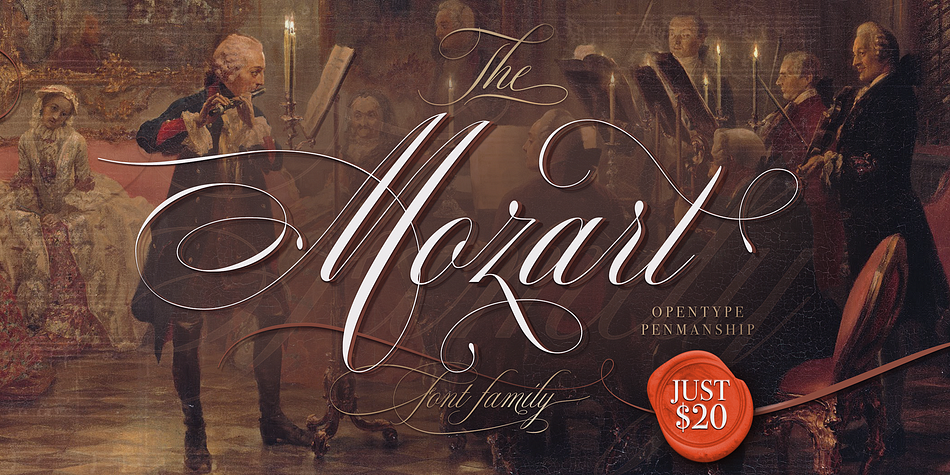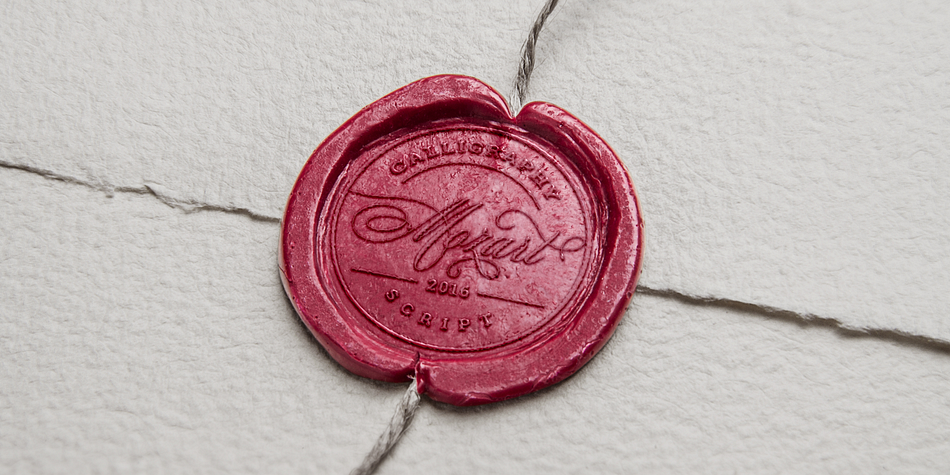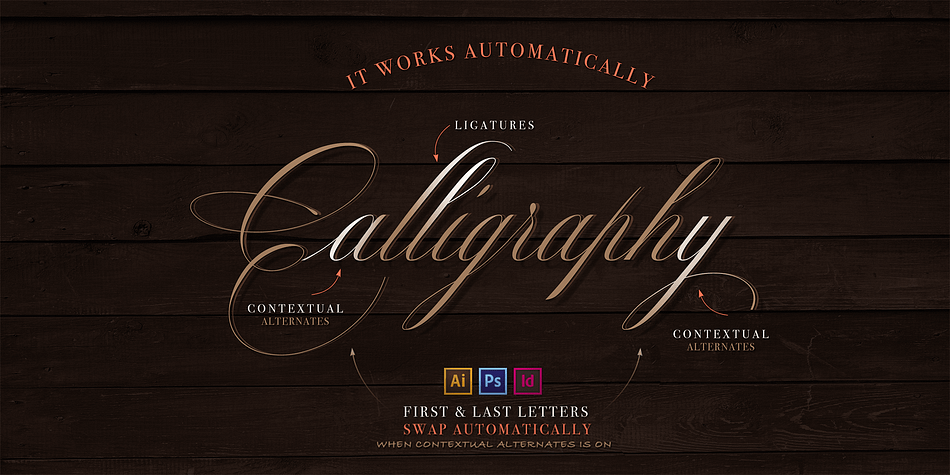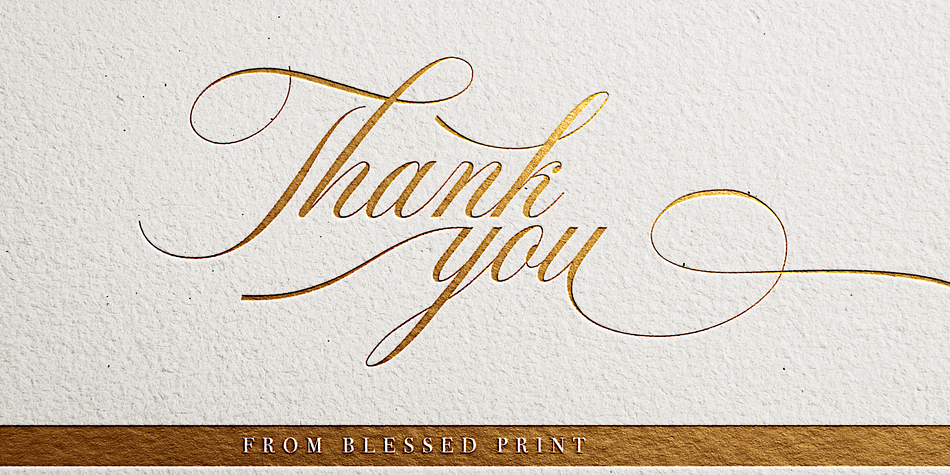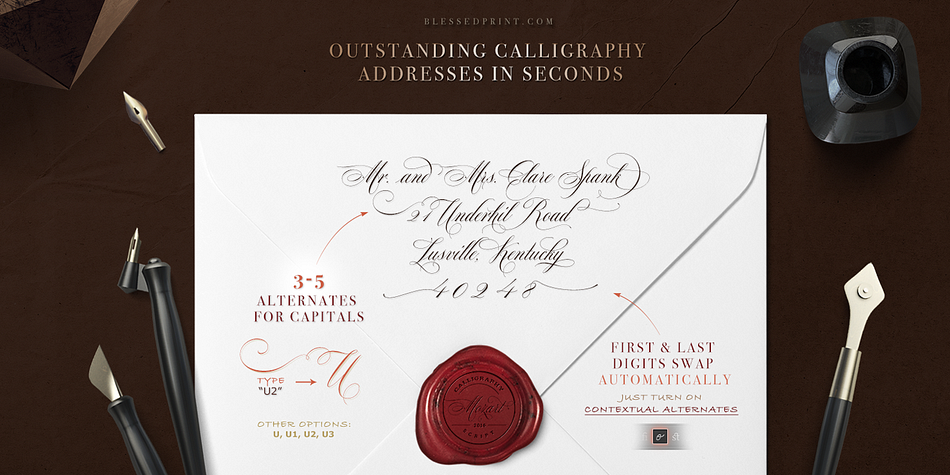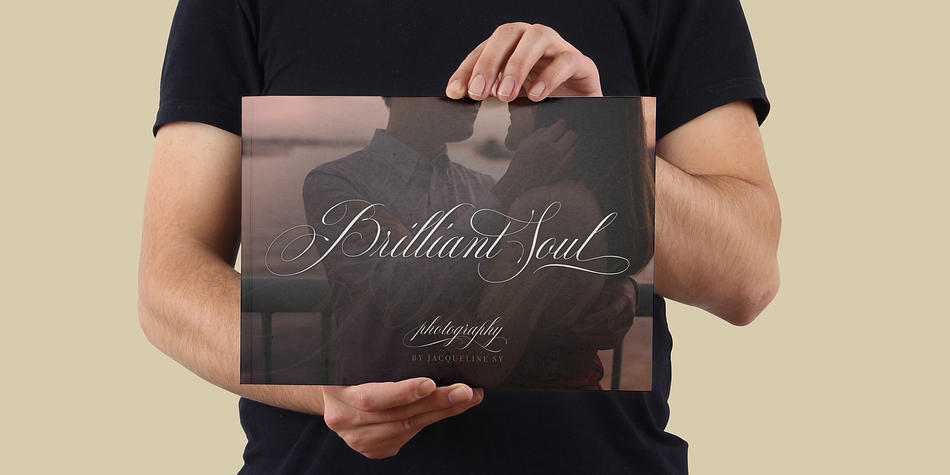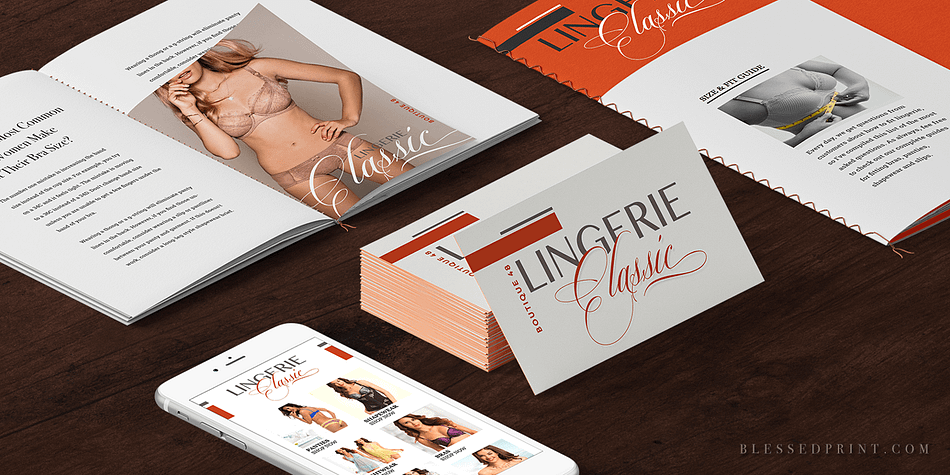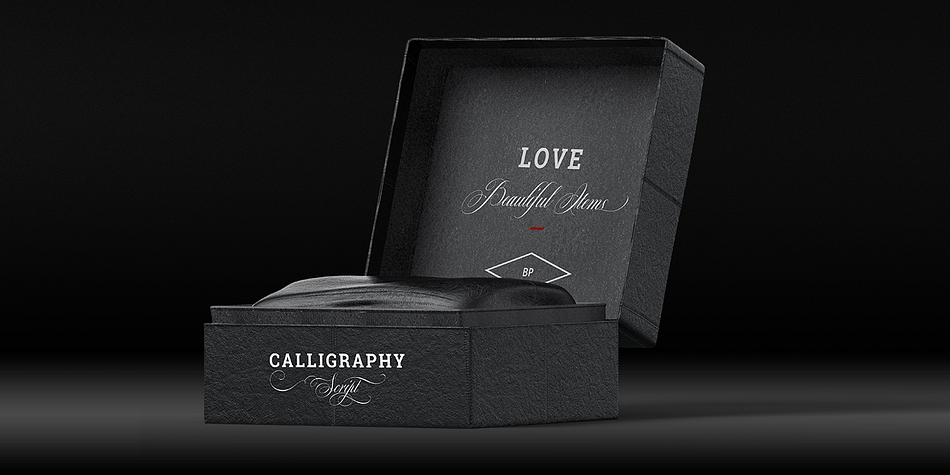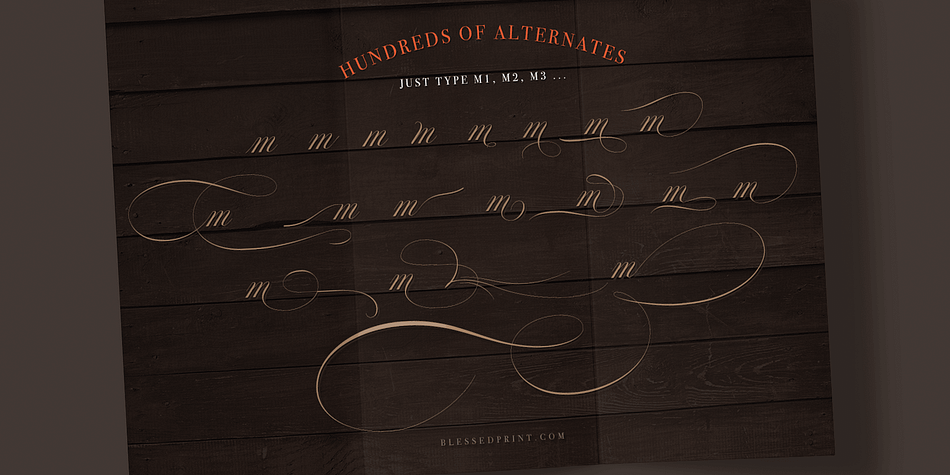
Designed by Dmitrii Mikitenko, Mozart Script is a script font family. This typeface has eight styles and was published by Blessed Prints.
Have you ever had a dream to write like a professional calligrapher? Penmanship or Spencerian script? Now you have this unique opportunity to try the early American handwriting! Introducing Mozart Script!
It is a very formal and yet playful font family with six hundred pre-made alternates. Mozart Script is a multilingual font family with 4 weights. Let me call it an “opentype penmanship” font.
How to get access to alternates: Easily! Really… As easy as one-two-three… To access alternates just type the number after the letter: a1, a2, a3 etc…
Type your text and start playing with alternates. Each of the letter has around 20 options, but some letters like “t” even more - around 30. Each of the letter has it’s own number of alternates with common rule: First come intermediate letters then final letters (for the endings) and after that initial letters (for beginning of the word)
Capital letters have 3-4 options. So just type M1, M2, M3 or M4 and find your favorite one!
This method is very fast and makes designer’s life so easy! You can also use the glyph panel without any restrictions. All characters are available through glyph panel as well, even more each of the alternate letter has it’s own unicode (PUA) so you can copy/paste from Apple Font Book or Windows Character Map. Total amount of glyphs 1579, includes more then 600 individual alternates.
Opentype features include that the first lowercase (after a capital) and last letter change automatically. You just need turn on Contextual Alternates. Usually Adobe Photoshop and other programs activate it by default. It brings unique appearance for the script. Elegant swashes remind us a Spencerian calligraphy.
Additional features:
Contextual alternates
Discretionary ligatures
Stylistics alternates (600+)
PUA (private use areas)
Mozart Script comes with 4 weights: Thin, Regular, Bold and Black with extra thin main line. I recommend use this option for headings and big texts. It has super high contrast between ultra thin and bold lines.
The only difference between Mozart Script Ext and the regular weights is that thin line is a bit wider. I highly recommend to use this option when you type small texts/paragraphs.